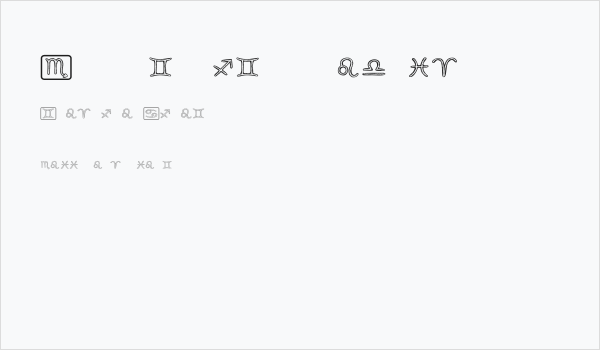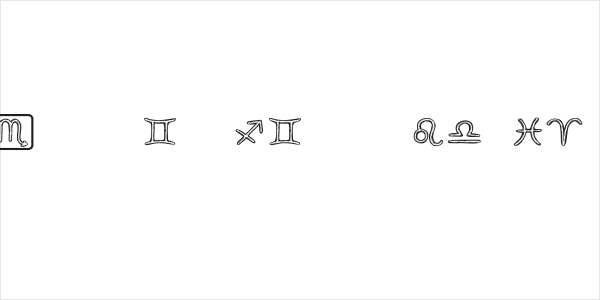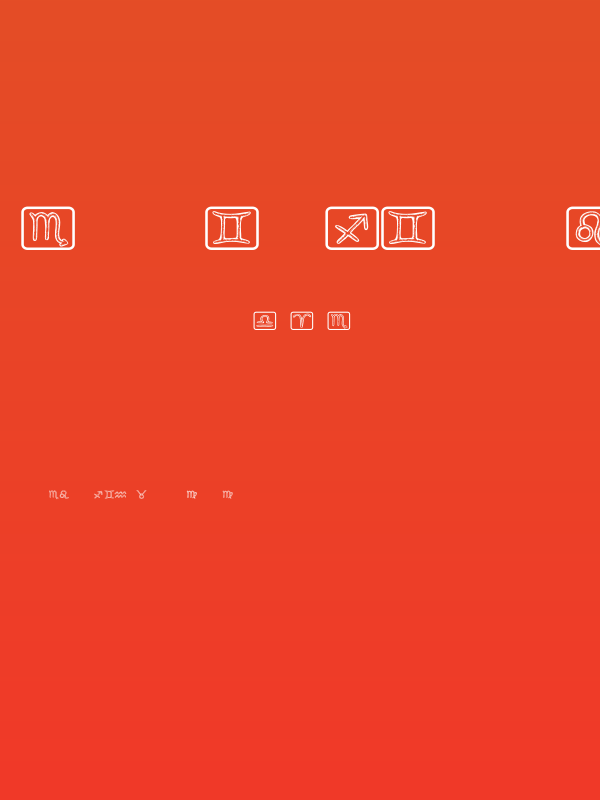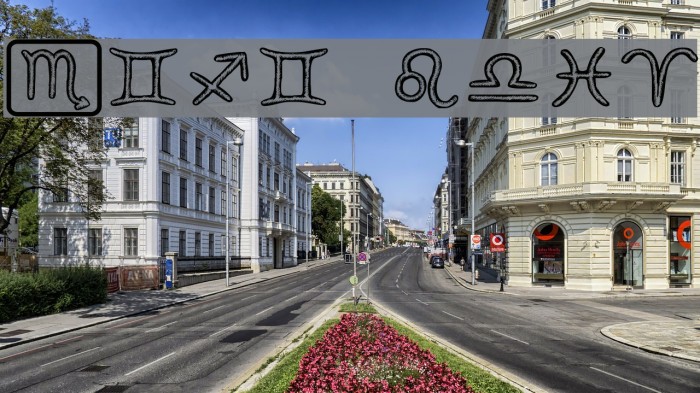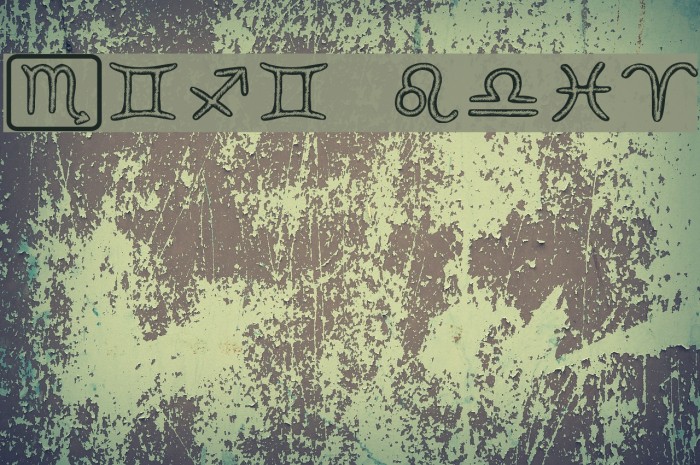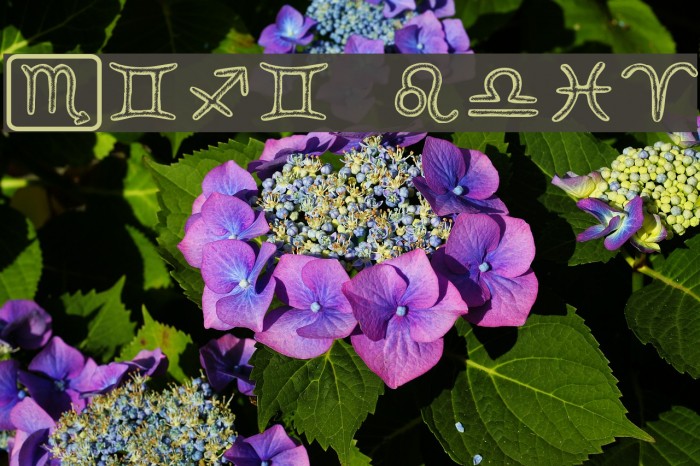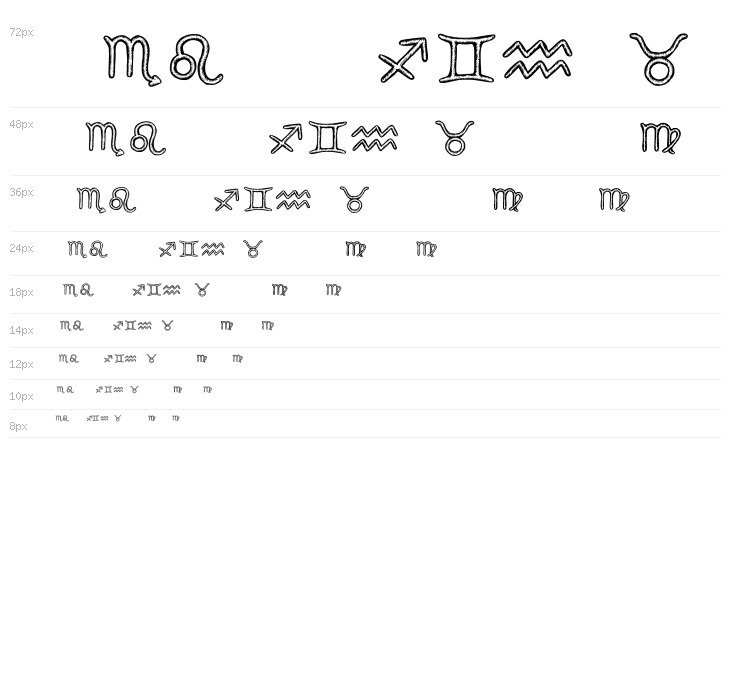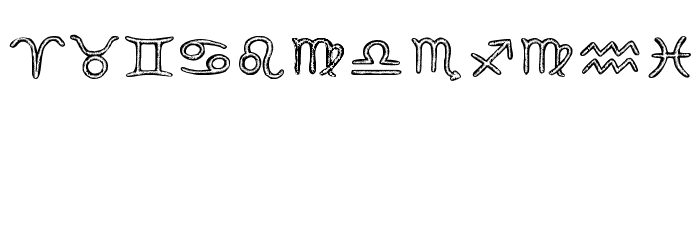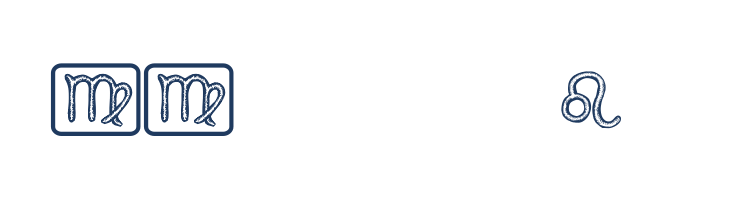
Horoscopicus Regular Font
Horoscopicus Regular Description
This font features a unique and decorative style inspired by astrological symbols. Each character is designed with intricate lines and curves, capturing the essence of zodiac signs. The font has a playful yet mystical appearance, making it ideal for projects that require a touch of whimsy and celestial charm. The characters are enclosed in square frames, adding a structured and cohesive look. This font is perfect for themed designs, horoscopes, or any creative project that seeks to incorporate an element of the stars.
| Use Case | Logos, Headlines, Themed Designs |
| Proposed Projects | Ideal for horoscopes, themed invitations, astrology blogs, and mystical event posters. |